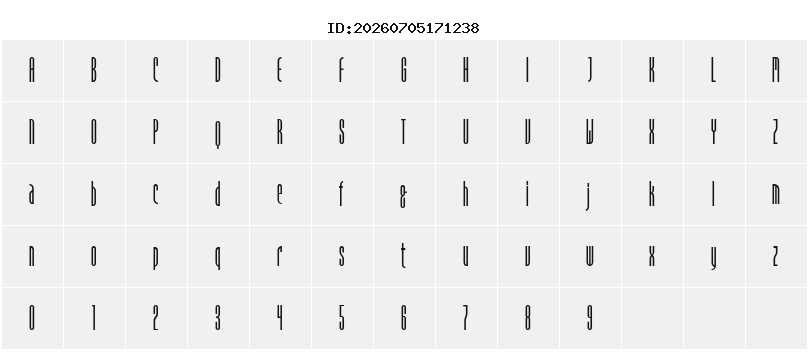
Dome Preview
• Font Name: Dome
• Font Style: Text
• Font ID: Macromedia Fontographer 4.1 Dome Text
• Full Font Name: Dome Text
• PostScript Name: DomeText
About Dome.ttf
Dome.ttf is a modern, elegant sans-serif font designed for ultimate readability and visual harmony. Perfect for branding, headlines, web design, and print materials.